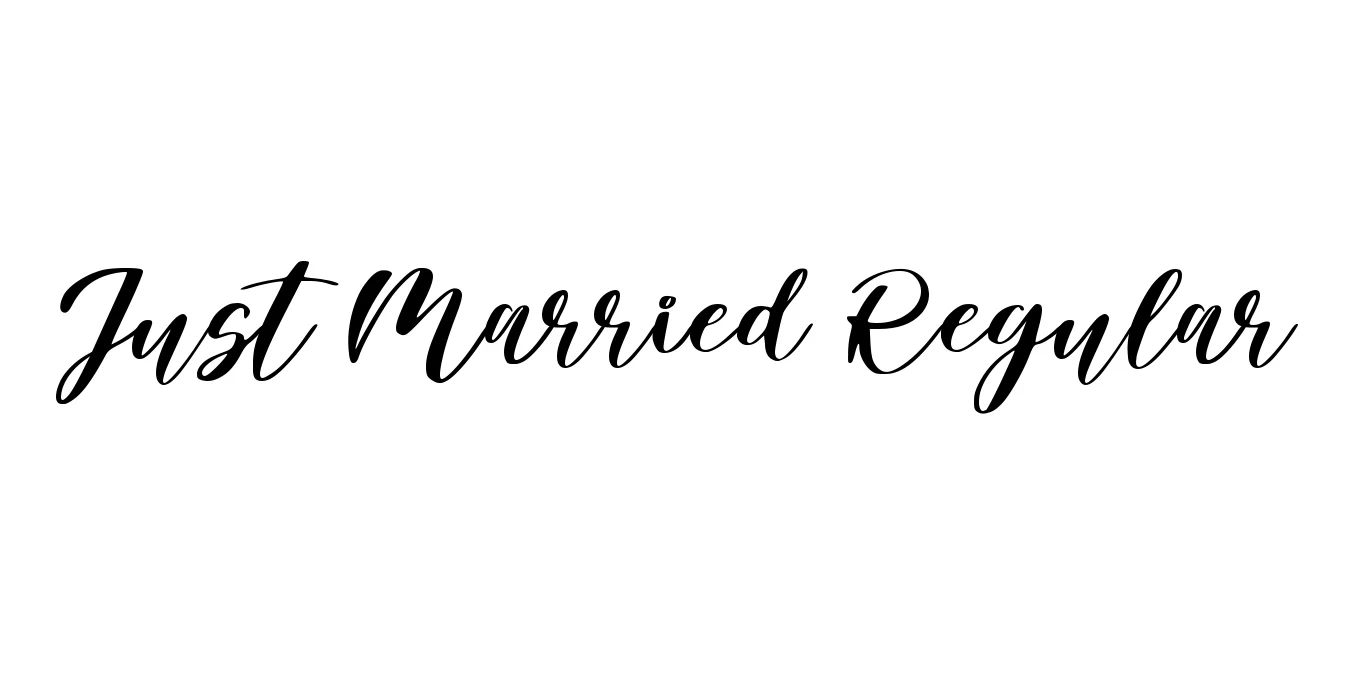
Just Married Regular
Just Married Regular is an exquisite script typeface meticulously crafted by the renowned designer Mans Greback. This font was designed to embody the elegance and romance associated with formal celebrations, featuring fluid, hand-drawn strokes that mimic high-end calligraphy. Its delicate curves and sophisticated ligatures make it a premier choice for designers looking to convey a sense of intimacy and timeless grace in their projects.
Since its introduction, the font has gained significant popularity within the wedding and event planning industries due to its versatility and legibility. Just Married offers a balanced aesthetic that works harmoniously across both digital and print platforms. Whether used for a subtle signature or a bold headline, the font retains its artistic integrity, providing a professional finish to any romantic or high-fashion creative work.
Just Married Regular Best Uses
Ideal for elegant invitations, RSVP cards, and seating charts.
Perfect for luxury boutique branding and professional photography watermarks.
Excellent for creating heartfelt social media graphics and e-cards.
Great for formal menus, programs, and welcome signs at high-end events.